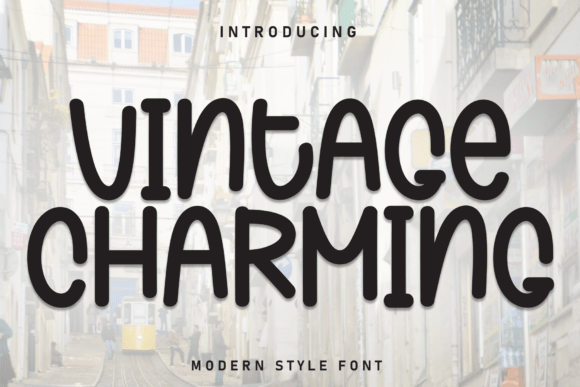
Vintage Charming Font: Elevate Your Designs with a Touch of Whimsy
In the realm of typography, few fonts manage to capture the essence of charm and whimsy as effectively as the Vintage Charming Font. This delightful, handcrafted display font is designed to infuse your creative designs with a touch of fun and personality. Whether you’re working on wedding invitations, card designs, or any project that requires a sprinkle of joyous charm, this font is the ideal choice.
The Allure of Vintage Charming Font
The Vintage Charming Font boasts an exceptionally versatile design that can be used in a variety of contexts. Its unique blend of classic and playful elements makes it perfect for designers looking to add a touch of whimsy to their work. The font’s handcrafted nature ensures that each letter and character is meticulously designed to contribute to the overall charm of the font.
Key Features of Vintage Charming Font
- Handcrafted with love: Each character is carefully designed to ensure a unique and personal touch.
- Delightful and sociable: The font’s playful nature makes it perfect for designs that require a friendly and approachable tone.
- Exceptionally versatile: Suitable for a wide range of design projects, from wedding invitations to card designs and more.
- Perfect for designs requiring a touch of fun: Add a sprinkle of joyous charm to your visuals with this charming font.
Using Vintage Charming Font in Your Designs
The Vintage Charming Font is incredibly easy to use and can be incorporated into your designs in a variety of ways. Here are a few ideas to get you started:
Design Ideas to Showcase the Font’s Charm
- Wedding Invitations: Add a touch of romance and whimsy to your wedding invitations with this beautiful font.
- Card Designs: Create personalized and charming card designs for any occasion, from birthdays to thank you cards.
- Social Media Graphics: Use the font to create engaging and playful social media graphics that are sure to capture your audience’s attention.
- Branding and Packaging: Incorporate the font into your branding and packaging designs to add a touch of personality and charm.
The Benefits of Using Vintage Charming Font
There are numerous benefits to using the Vintage Charming Font in your designs. Here are a few:
The Benefits of Using Vintage Charming Font
- Unique and eye-catching: The font’s unique design ensures that your visuals will stand out from the crowd.
- Easy to read and understand: Despite its playful nature, the font remains clear and easy to read, making it perfect for designs that require a touch of whimsy without sacrificing legibility.
- Customizable: The font can be easily customized to fit your design needs, allowing you to adjust the size, color, and style to suit your project.
- Time-saving: With the Vintage Charming Font, you can create professional-looking designs in a fraction of the time it would take to create them from scratch.
Tips for Getting the Most Out of Vintage Charming Font
To get the most out of the Vintage Charming Font, here are a few tips to keep in mind:
Tips for Getting the Most Out of Vintage Charming Font
- Experiment with different sizes and colors: Don’t be afraid to try out different sizes and colors to find the perfect combination for your design.
- Pair it with other fonts: The Vintage Charming Font pairs well with a variety of other fonts, so feel free to experiment with different combinations to find the perfect match.
- Use it sparingly: While the font is perfect for adding a touch of whimsy to your designs, it’s best to use it sparingly to avoid overwhelming the viewer.
- Have fun with it: Most importantly, have fun with the font! The Vintage Charming Font is designed to bring a touch of joy and personality to your designs, so don’t be afraid to get creative and try new things.
In conclusion, the Vintage Charming Font is a delightful and sociable handcrafted display font that’s perfect for adding a touch of fun and whimsy to your designs. With its exceptionally versatile design, it’s the ideal choice for a wide range of projects, from wedding invitations to card designs and more. So why wait? Download the Vintage Charming Font today and start elevating your designs with a touch of joyous charm!